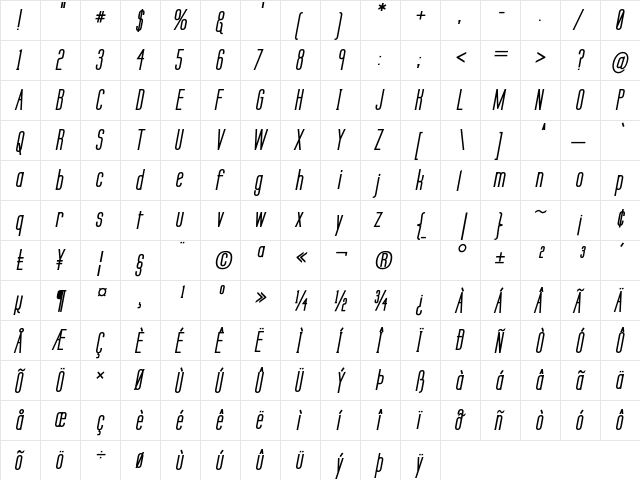
Labtop Secundo Bold Italic
Design Context for Labtop Secundo Typeface
Labtop Secundo is a composed and adaptable typeface that performs quietly and consistently across a wide range of design contexts. The slanted form adds forward momentum and visual energy. Its bold stroke weight gives it real presence on the page.
Pro Tip: Try Labtop Secundo for annotation and caption copy alongside an upright companion — the contrast in angle creates a dynamic but ordered typographic system.